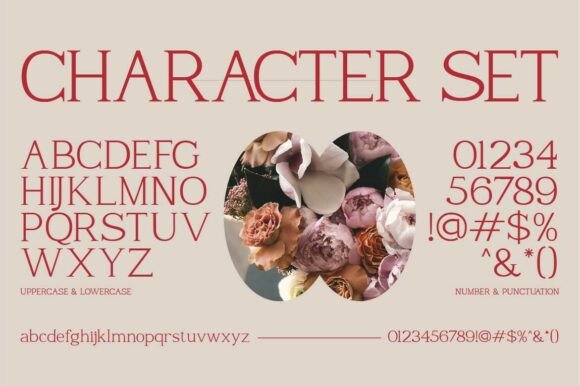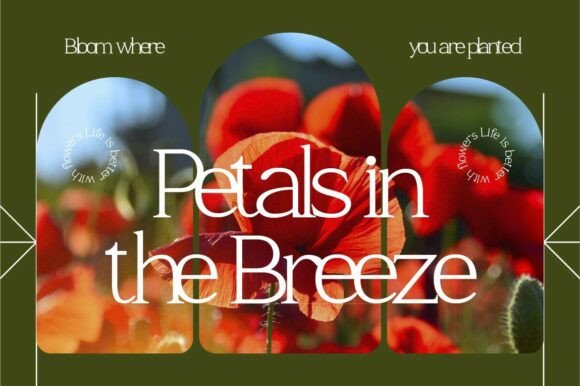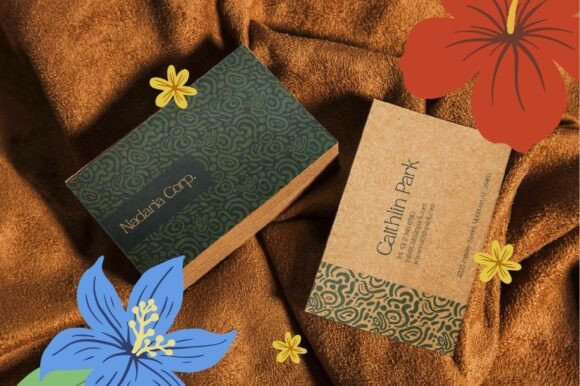
Introduction to Nadaria Font
Nadaria is a refined serif font inspired by nature’s elegance and floral beauty.
With its graceful letterforms and delicate botanical accents, this typeface is ideal for creative branding, packaging, wedding stationery, and graphic design with a nature-inspired touch Nadaria adds poetic sophistication and organic warmth to every project, making it a perfect fit for designers seeking harmony between classic typography and artistic natural elements.
Key Features of Nadaria Font
Why Choose Nadaria Font?
Nadaria Font offers exceptional quality and versatility, making it a valuable addition to your design toolkit. Whether you’re creating for personal projects or commercial use, Nadaria Font delivers professional results.